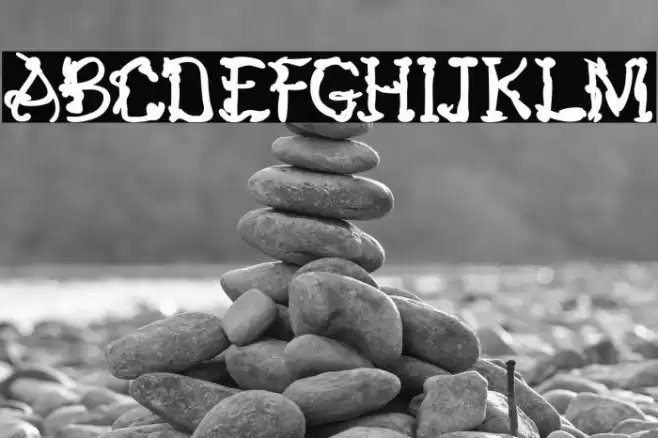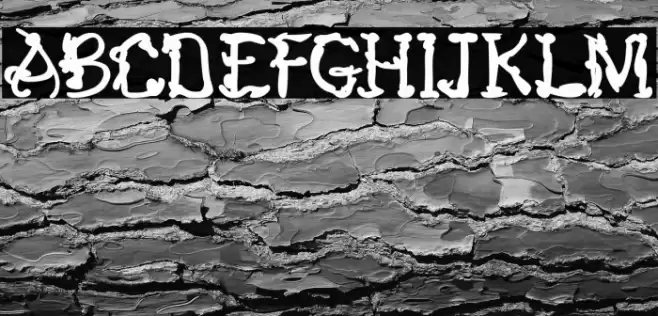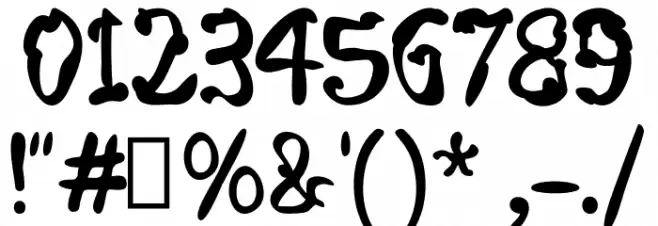
Nemukhin Obralho Font
Nemukhin Obralho Description
This font features a bold and decorative style with a playful and artistic flair. The characters are uniquely designed with irregular, organic shapes that give them a hand-drawn appearance. The uppercase letters have a whimsical quality, with varying stroke thicknesses and unexpected curves that add to the font's charm. The lowercase letters maintain this playful aesthetic, providing a cohesive look across the alphabet. Numbers and special characters are equally stylized, ensuring consistency throughout. This font is ideal for projects that require a creative and eye-catching typeface.
A bold, decorative font with a playful, hand-drawn style from Uncategorized fonts.
- Font: Nemukhin Obralho
- Proposed Projects: Ideal for posters, artistic projects, children's books, and creative branding.